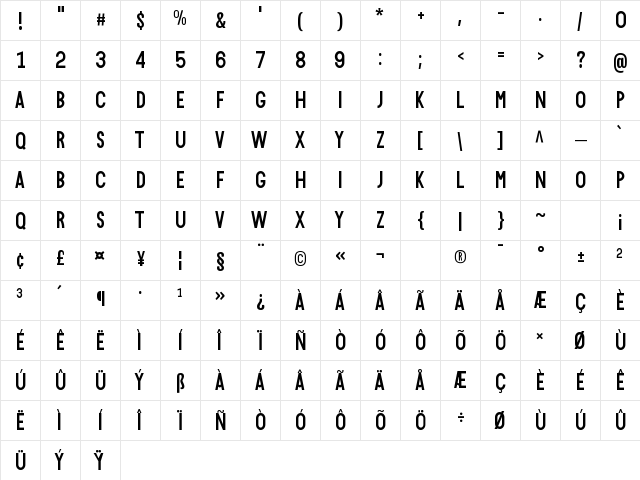
Bonjour De Jong Sans Regular
| Foundry | Wellscript Studio |
| Designer | Welianto |
Design Context for Bonjour De Jong Sans Typeface
Bonjour De Jong Sans offers clean, dependable letterforms without strong stylistic allegiance, making it a practical choice for designers who need flexibility.